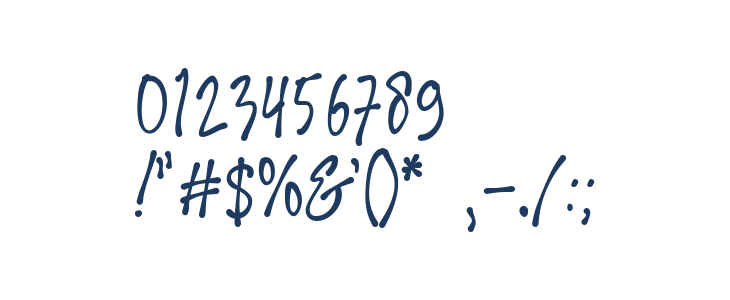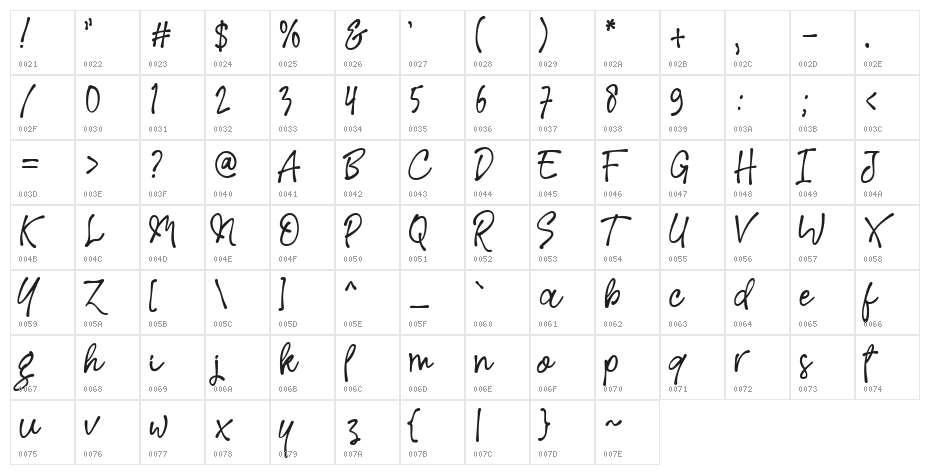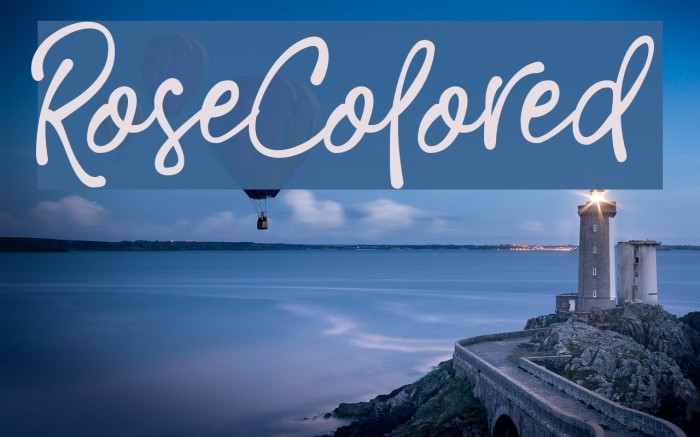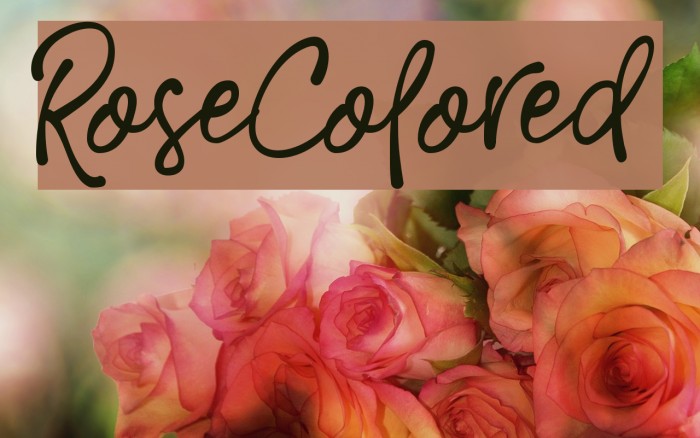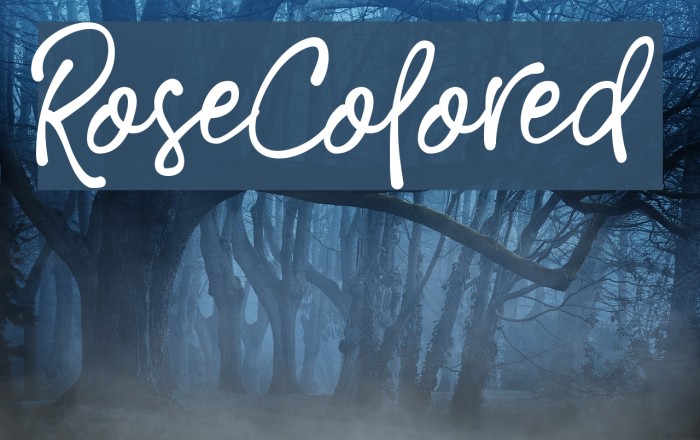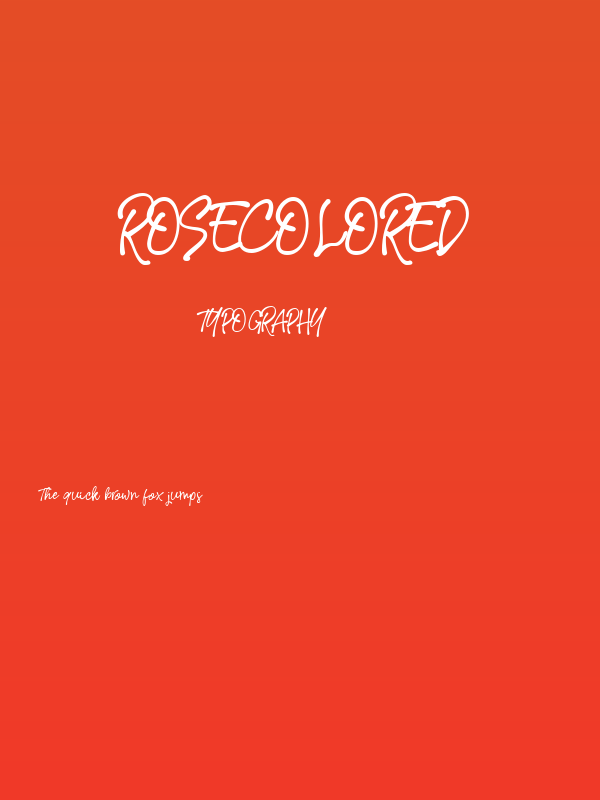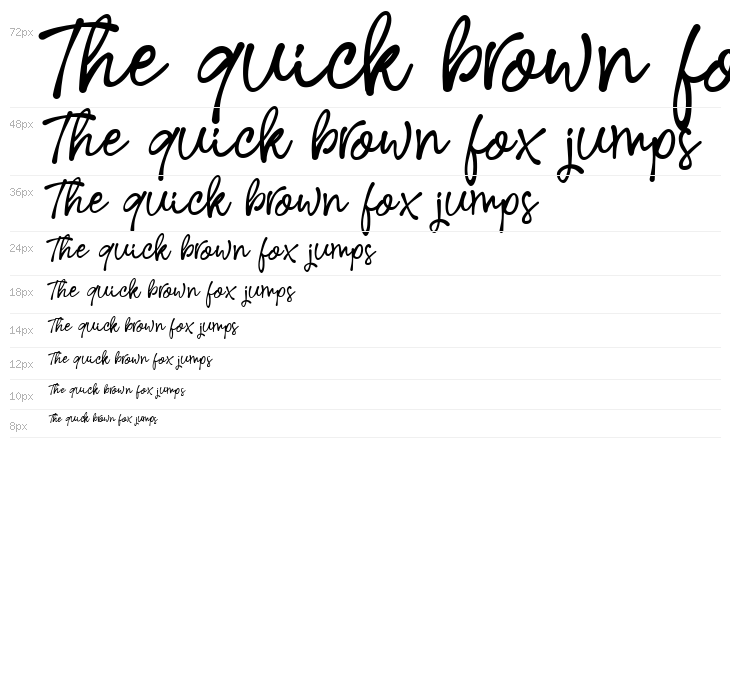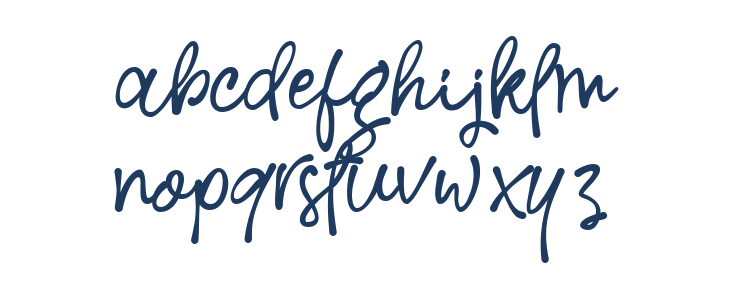
RoseColored Font
RoseColored Description
This font exudes a lively and dynamic energy, characterized by its handwritten, cursive style. The letters are fluid and interconnected, giving a sense of motion and personal touch. The uppercase letters are bold and expressive, while the lowercase letters maintain a consistent flow, enhancing readability despite their artistic flair. Numbers and special characters follow the same energetic style, making them stand out. The overall design is informal yet stylish, perfect for adding a personal or creative touch to any project.
| Use Case | Logos, Invitations, Personal Branding |
| Proposed Projects | Ideal for greeting cards, invitations, personal branding, and creative projects that require a personal touch. |